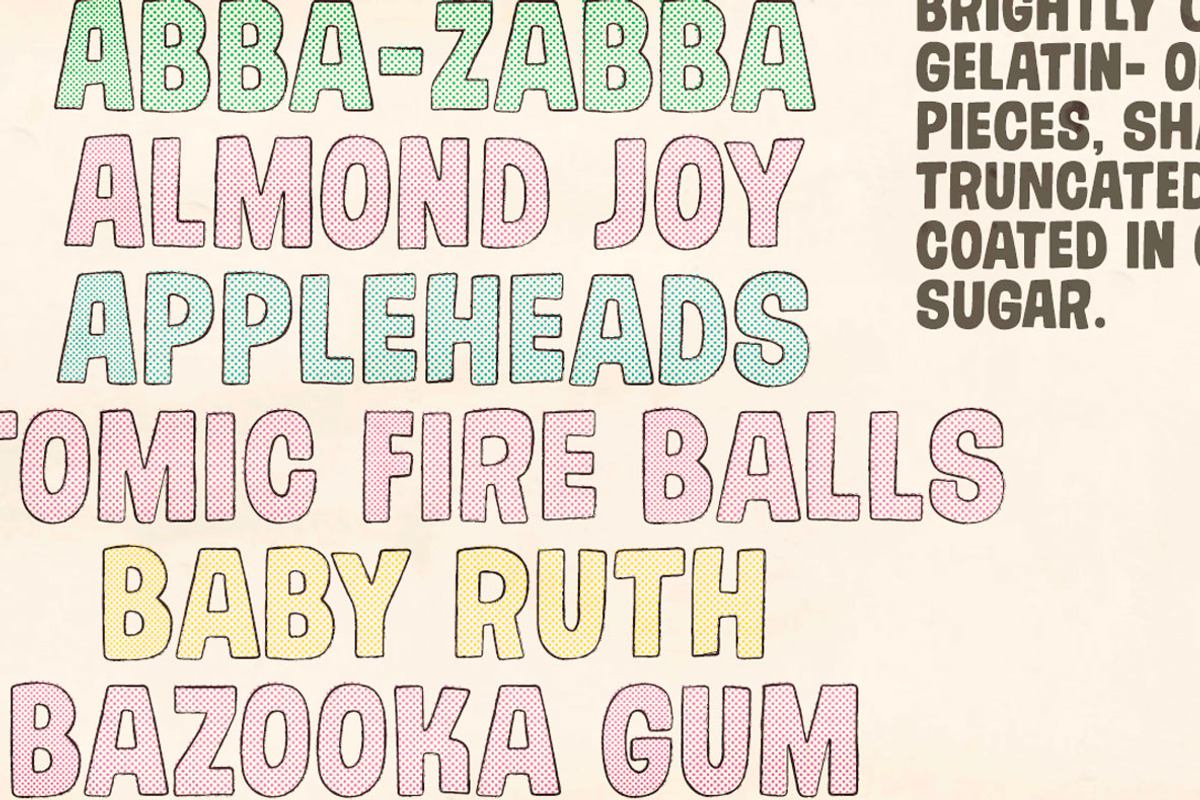
Gumdrop Family | 3 Handy Sweet Fonts Free Download is a delightful font trio full of charm and playful personality. With rounded edges, bouncy curves, and a cheerful vibe, this font family is perfect for children's books, candy packaging, party invitations, stickers, and colorful branding projects.
Each of the three fonts in the Gumdrop Family offers a unique take on fun, making them ideal for mixing and matching in creative layouts. Whether you're crafting classroom materials or cute merch designs, Gumdrop brings a dose of happiness to your typography.
Designers love Gumdrop Family for its versatility, friendliness, and joyful energy across both digital and print. Want to sweeten up your next design? Download Gumdrop Family | 3 Handy Sweet Fonts Free Download and add a sprinkle of fun to your font collection.